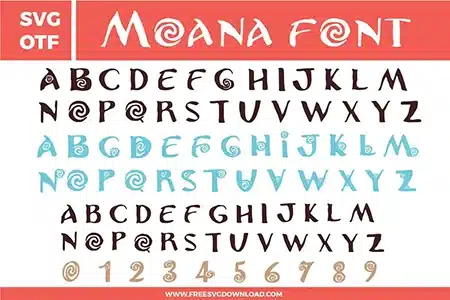
Moana Font Free SVG File
This Moana Font free svg files bundle features a complete tropical alphabet A-Z and numbers 0-9. The design showcases a tribal, hand-drawn aesthetic in dark brown and light blue colors, with distinct ocean swirl motifs integrated into letters like A, G, O, and Q. The font style is inspired by Polynesian culture and oceanic adventures, perfect for high-quality digital crafting.
• Moana Font SVG: Full uppercase alphabet set with matching numbers in a tropical island-inspired display style, featuring hand-drawn letterforms, tapered strokes, and spiral wave details incorporated into selected characters.